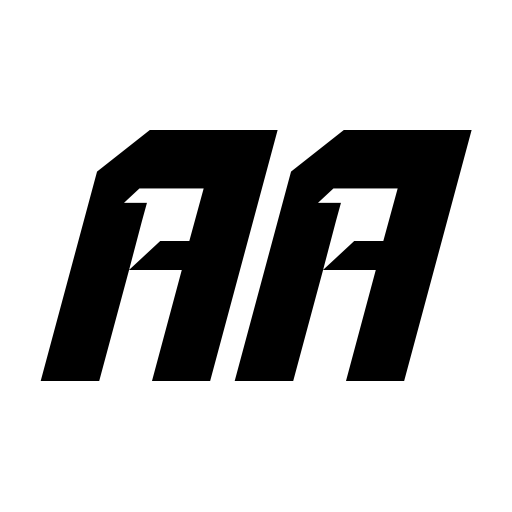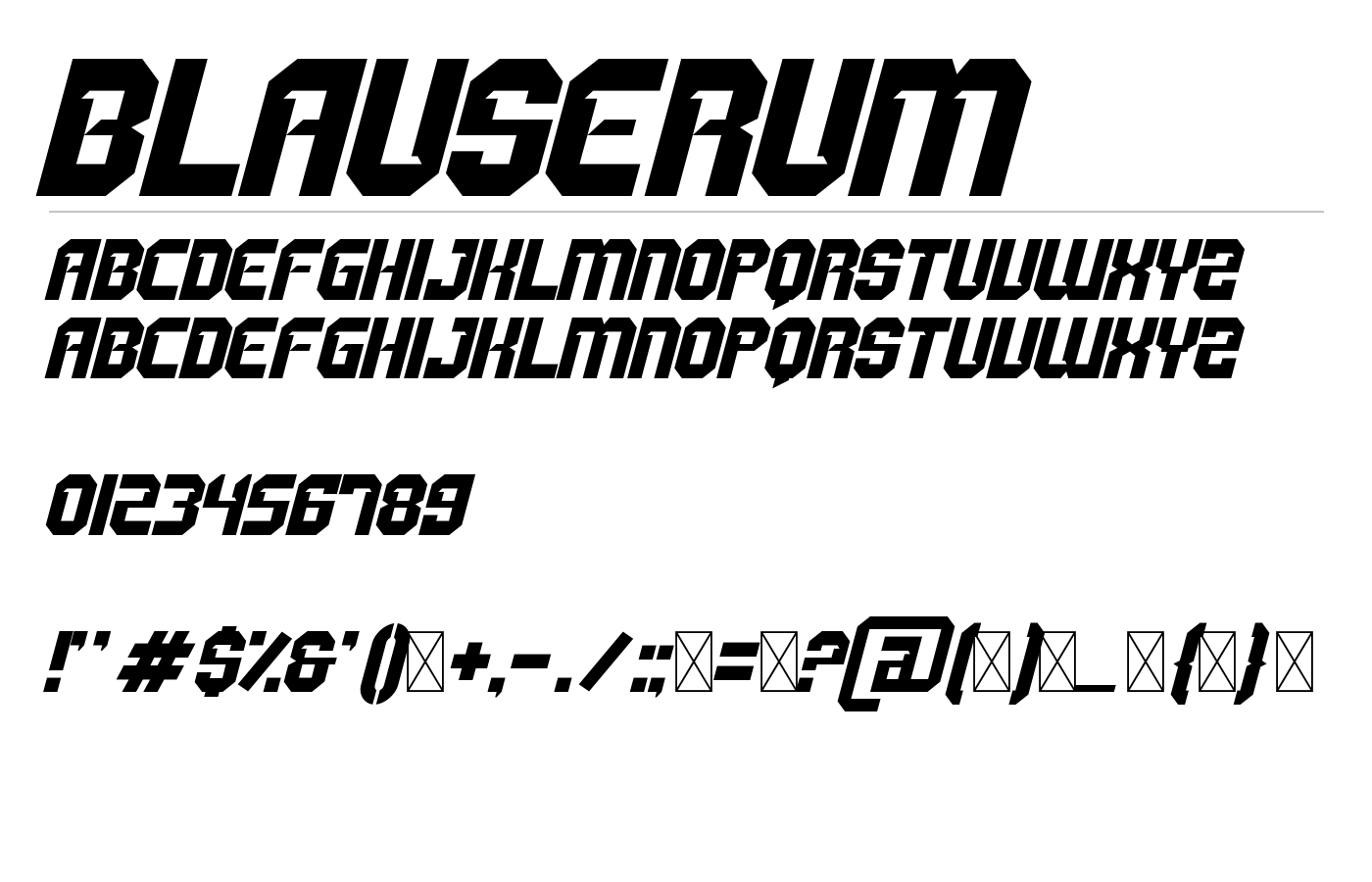
BLAUSERUM is a bold, condensed sans-serif font with a futuristic and angular design, characterized by sharp edges and a dynamic italic slant that gives it a strong sense of motion. Its high contrast and geometric shapes make it ideal for energetic branding, sports, and technology-focused projects looking to convey power and modernity. This font works best in headlines, logos, and posters where a striking, impactful style is needed to grab attention.
BLAUSERUM Font